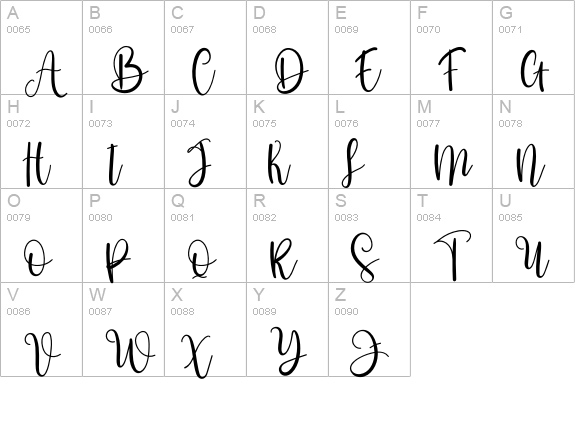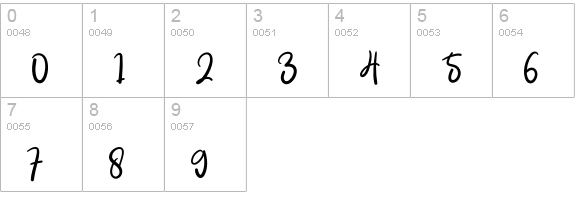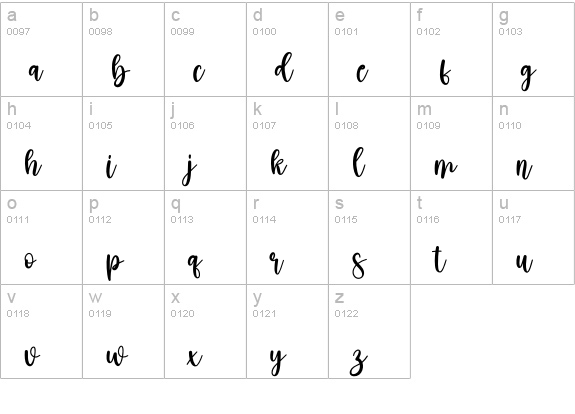
Blackpink Font Details
Blackpink is a free for personal use font in the Script > Handwritten category, designed by scratchones. It has been downloaded 6 times and is available for Windows, Mac and Linux.
The Blackpink font is a sleek and stylish typeface that exudes elegance and modernity. With its bold lines and graceful curves, this font is perfect for adding a touch of sophistication to any design project. Whether you're creating a logo, poster, or website, Blackpink font will make your text stand out and grab attention.